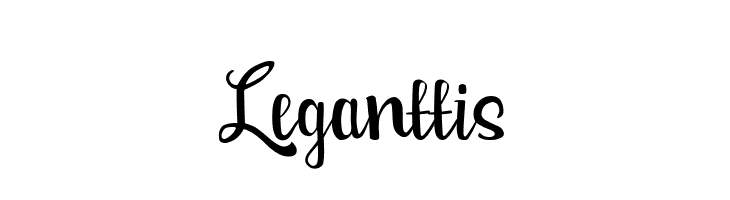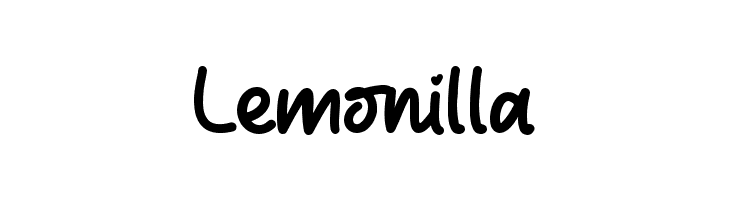
A decorative script font with elegant loops and swirls, offering a playful yet sophisticated style.
A rugged, distressed font with a vintage, hand-drawn style.
An elegant, flowing script font with delicate, graceful strokes.
A bold, gothic-inspired font with intricate, decorative details.
A playful and elegant script font with flowing, interconnected letterforms.
A vintage, hand-drawn font with a textured, rustic appearance.
A dynamic and expressive script font with fluid, cursive letterforms.
A bold, expressive script font with flowing, cursive letters.
An elegant script font with flowing, cursive characters and a sophisticated style.
An elegant and flowing script font with intricate, decorative letterforms.